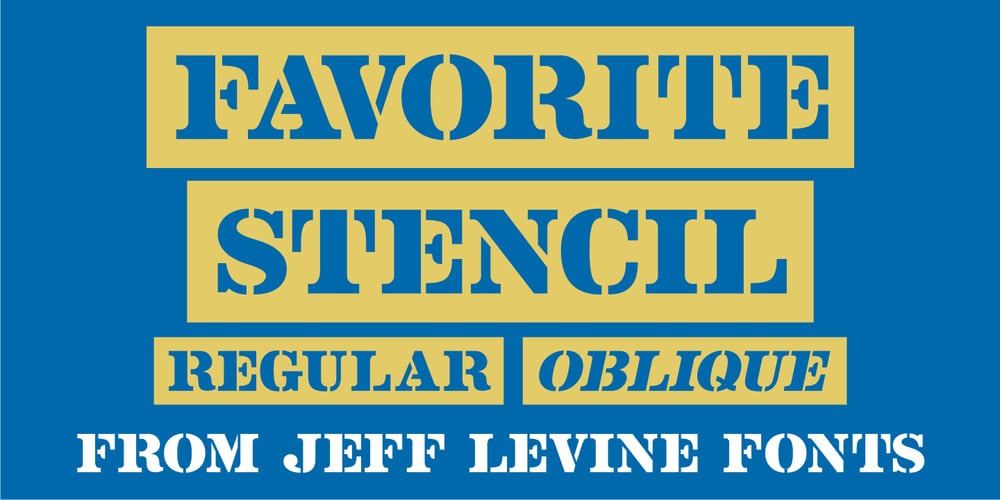
Favorite Stencil JNL
Favorite Stencil JNL font
Favorite Stencil JNL Font Family was designed by Jeff Levine and published by Jeff Levine. Favorite Stencil JNL contains 2 styles and family package options. Favorite Stencil JNL is inspired by and modeled after the classic hot metal typeface “Ludlow Stencil”; a design that enjoyed popularity around the 1950s and is not to be confused with Ludlow’s similarly-named “Stencil” which was released in 1937. Available in both regular and oblique versions.